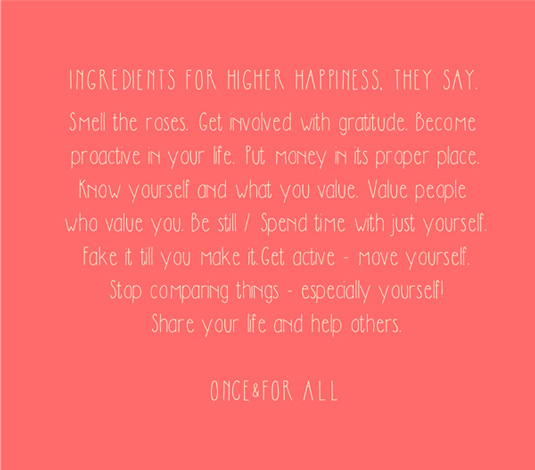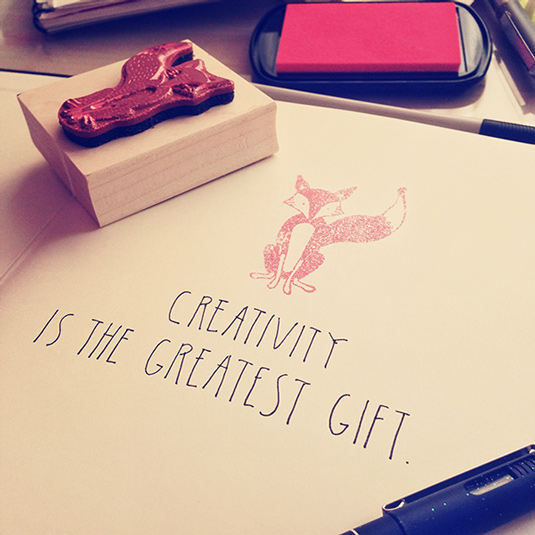
Font of the day: Dilem Handwritten
Every day we showcase the best fonts on the web. Today it's Dilem Handwritten by Dilem Akiner, which is totally free to download.
Dilem Handwritten by Dilem Akiner
Today's typeface of choice is Dilem Handwritten, the first font experiment by graphic designer Dilem Akiner. Derived of her own handwriting, this skinny, elegant font is great for creating eye-catching headlines, posters and more.